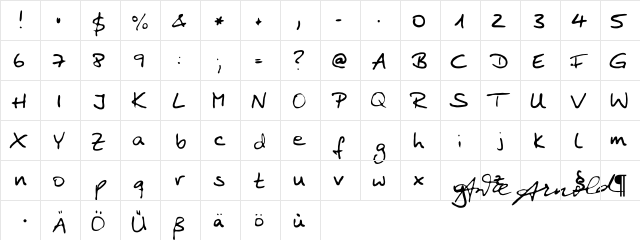
Anke Print Regular
Design Context for Anke Print Typeface
Anke Print offers clean, dependable letterforms without strong stylistic allegiance, making it a practical choice for designers who need flexibility.